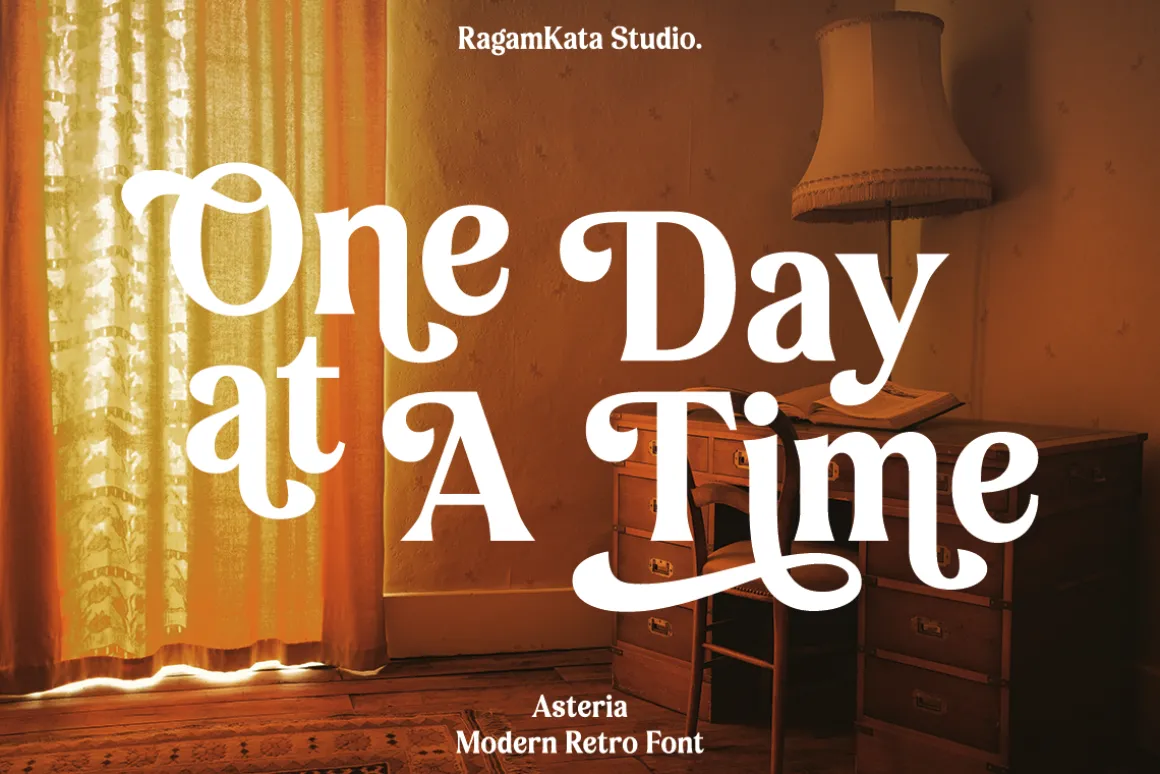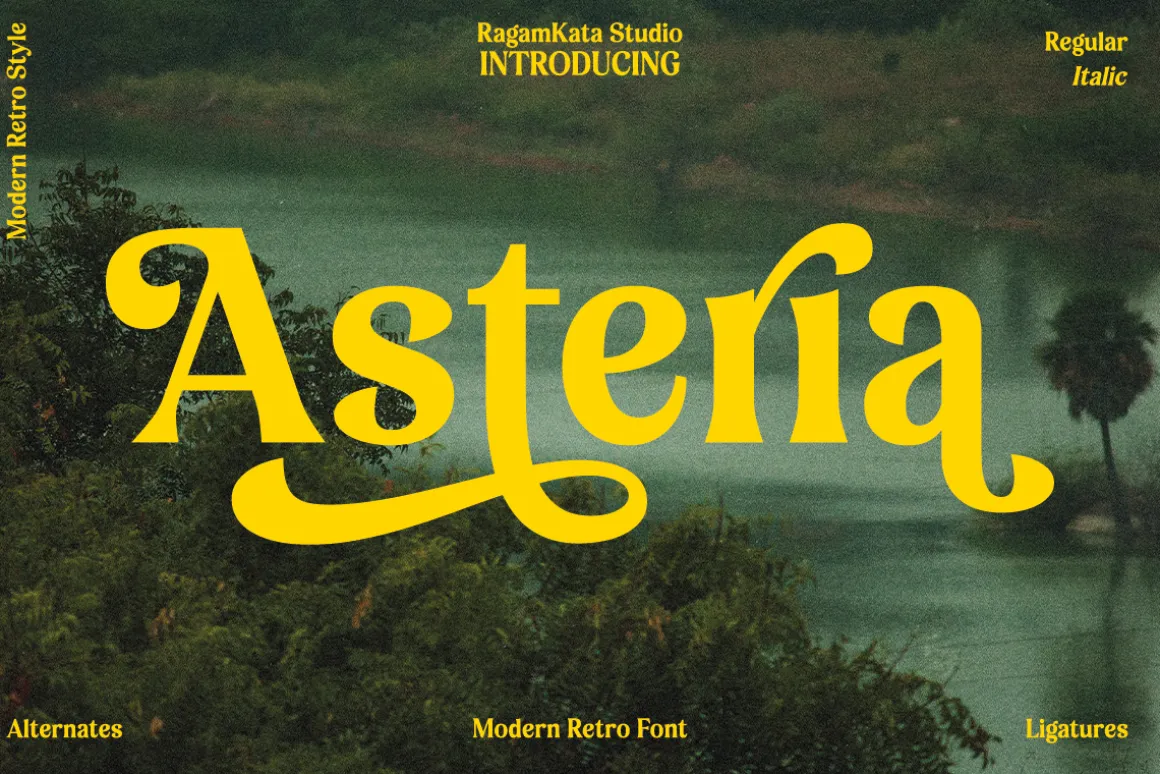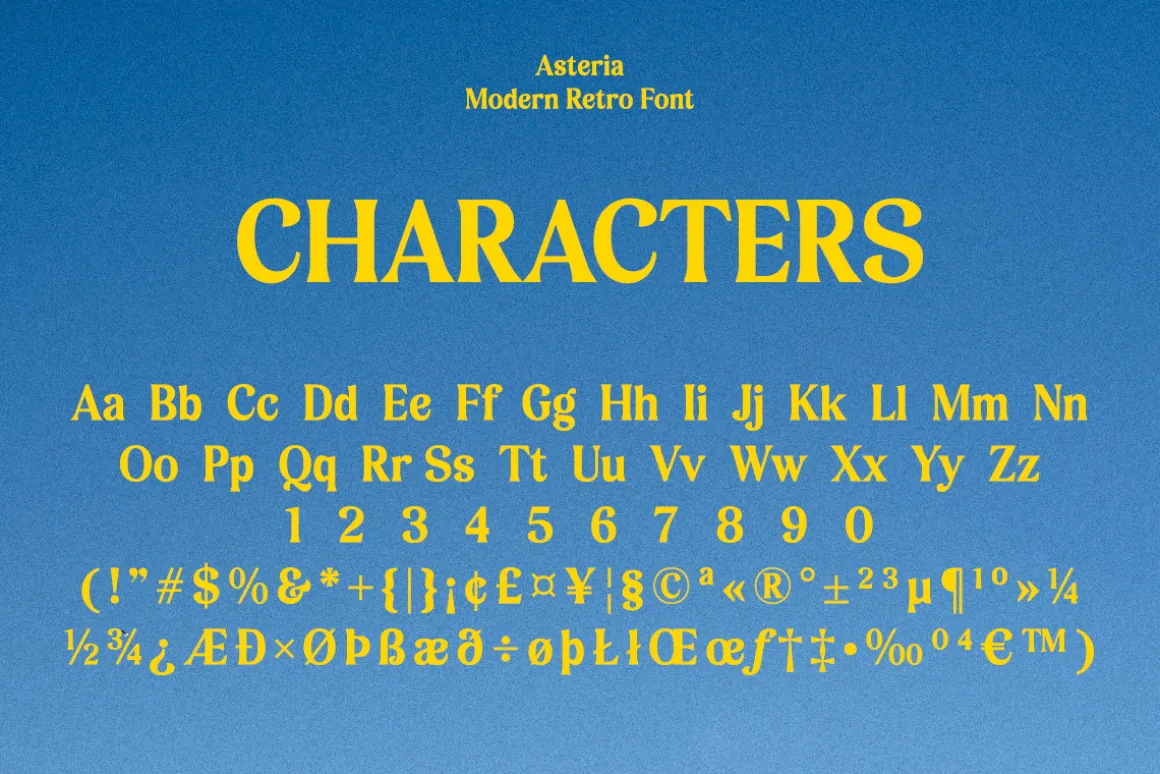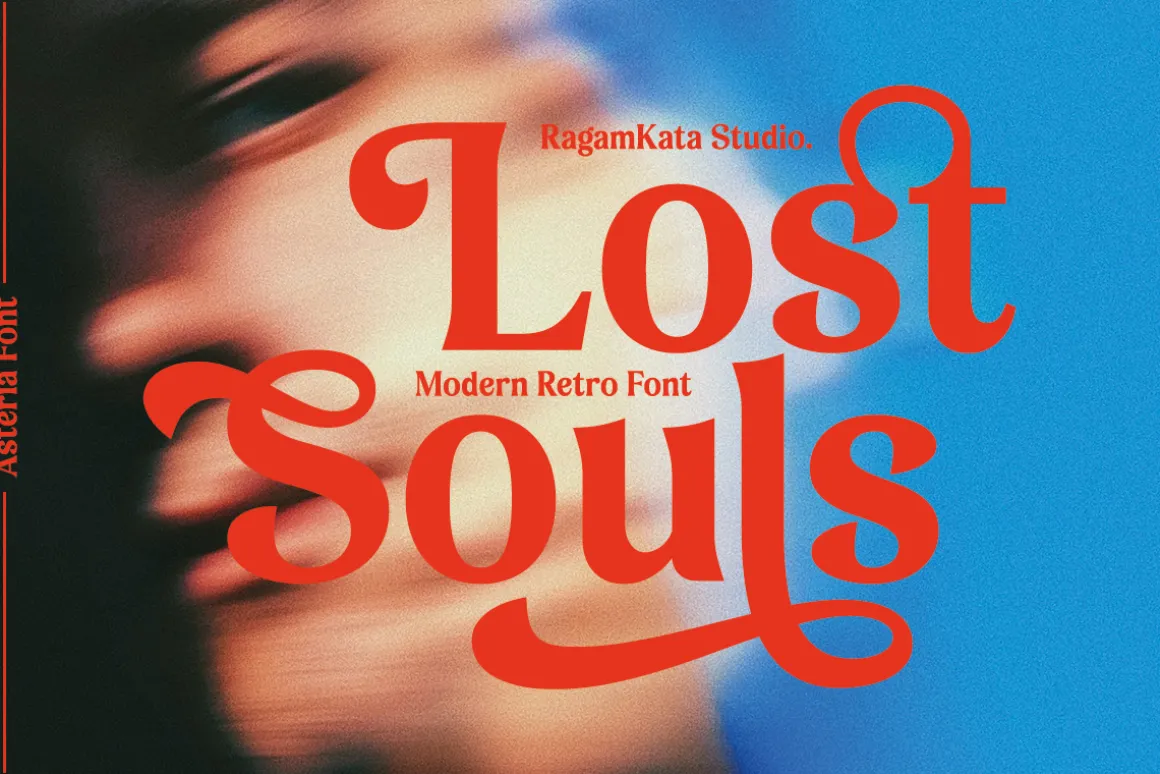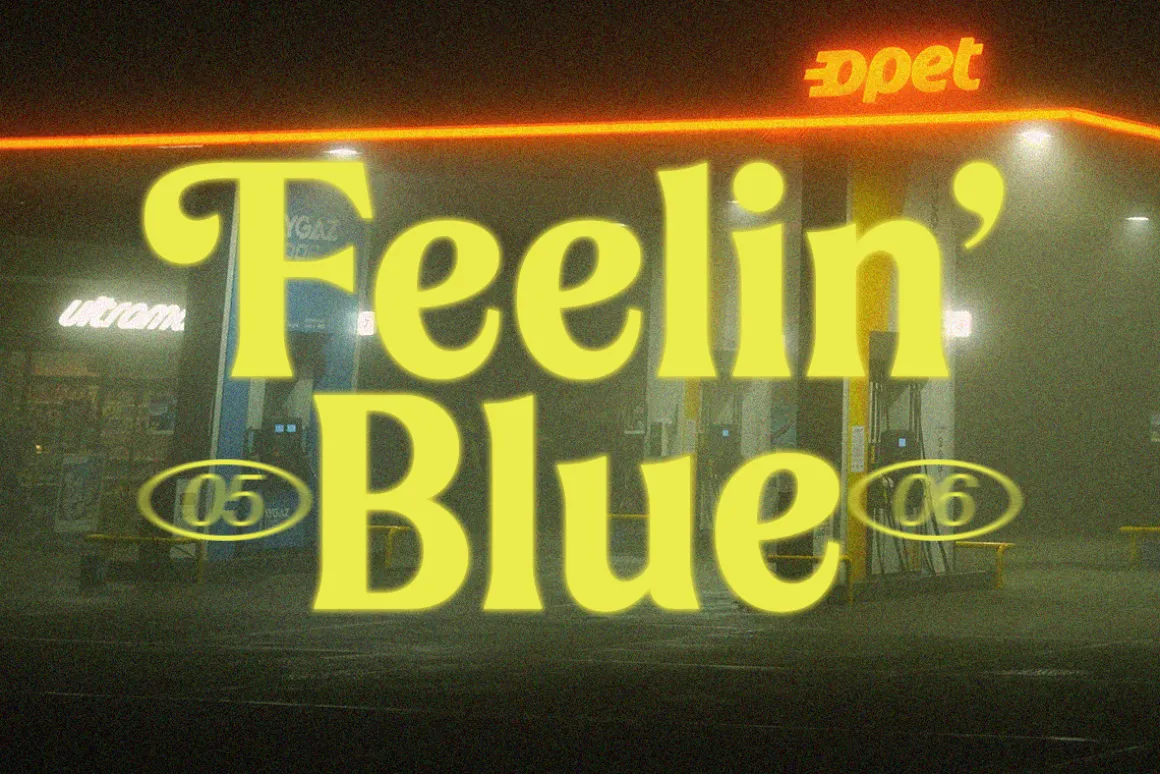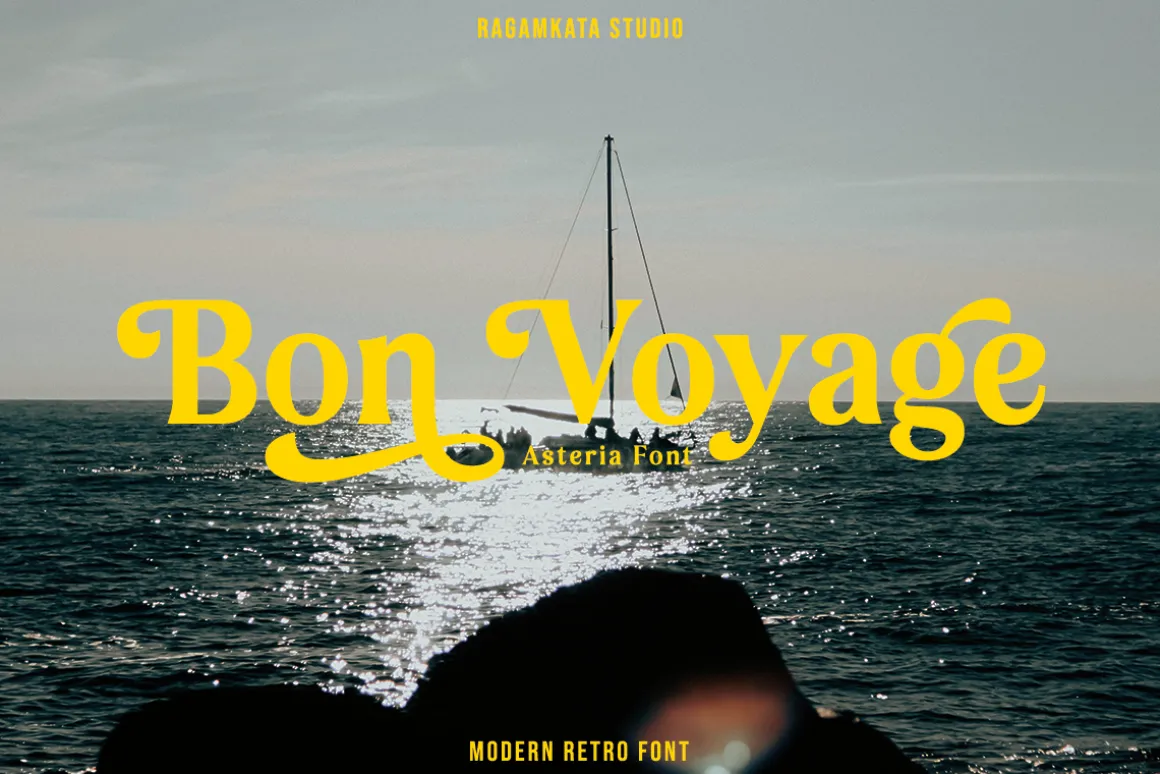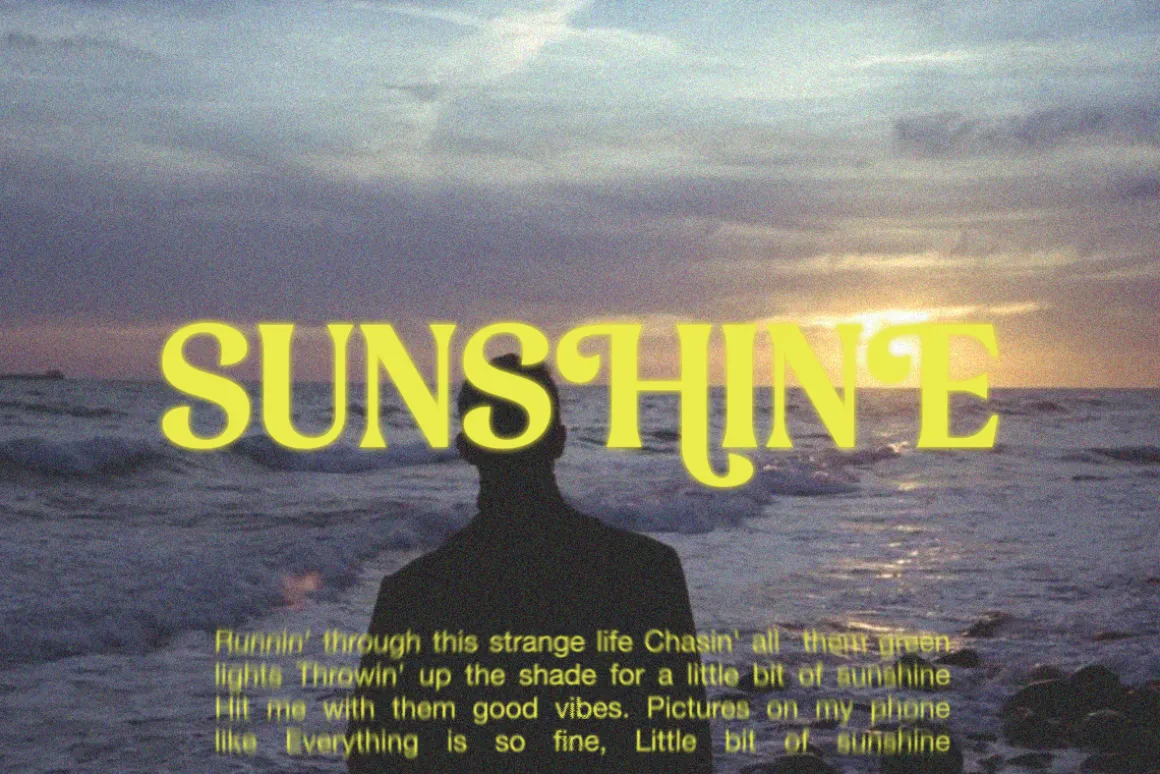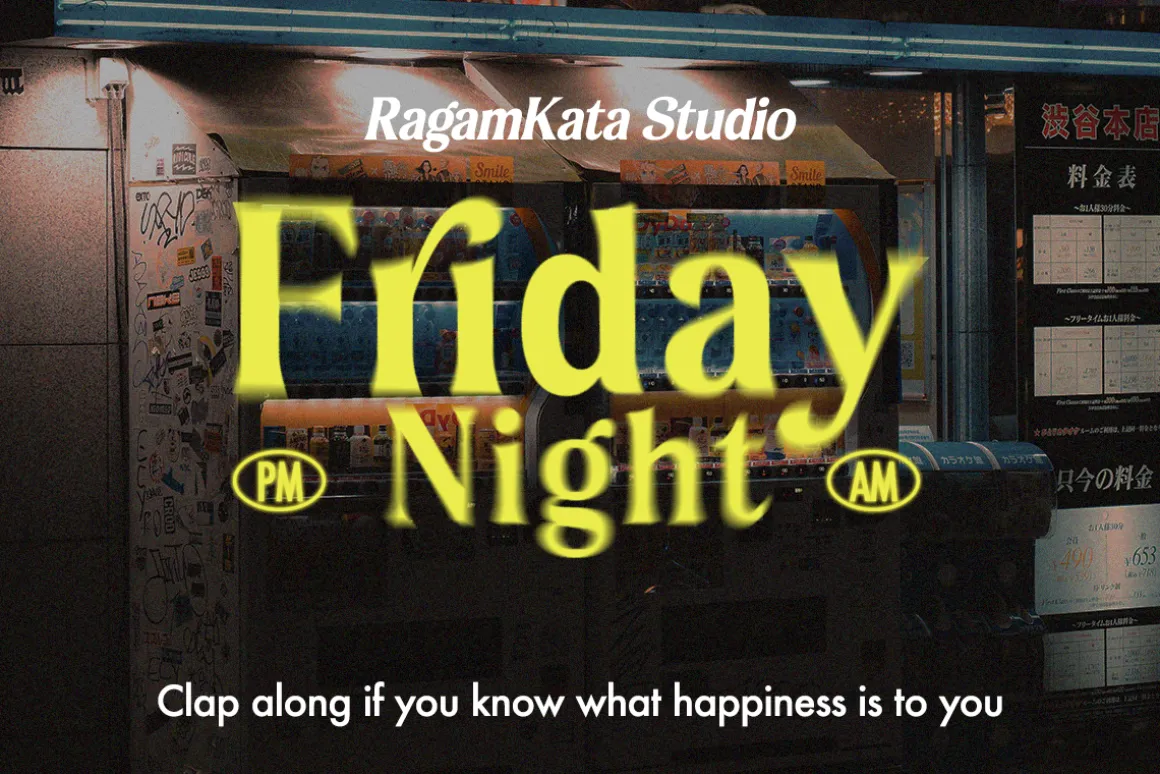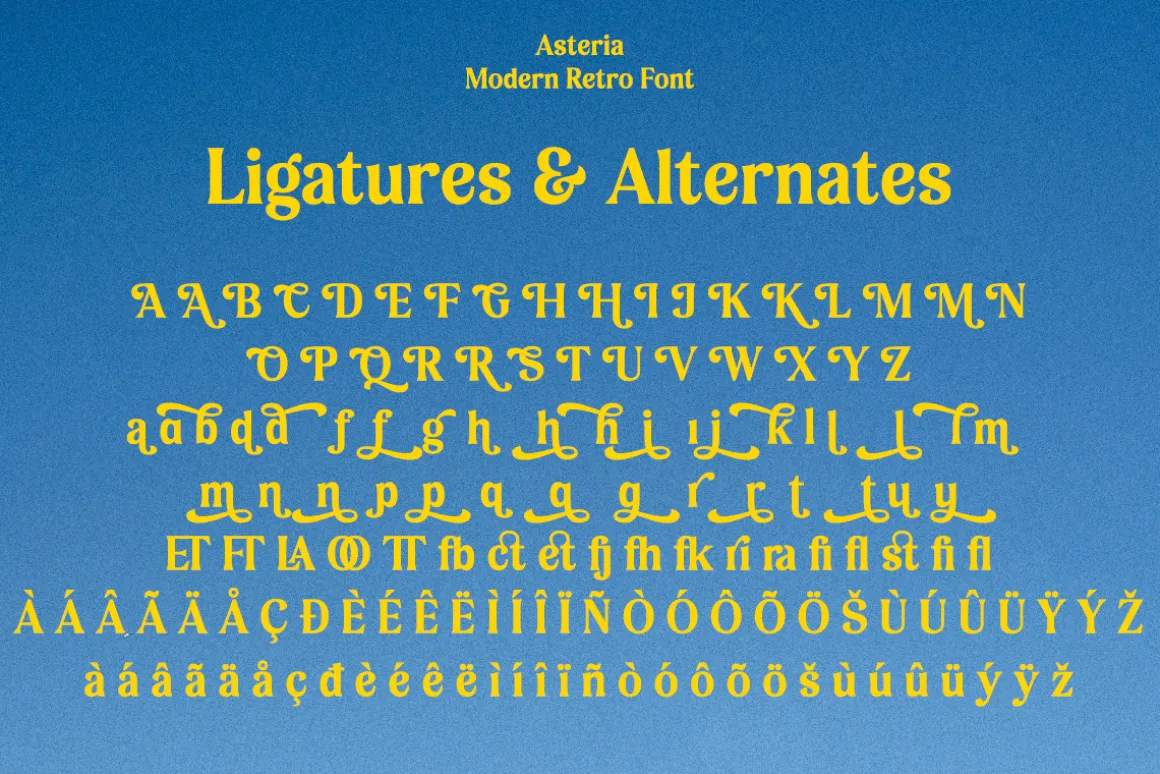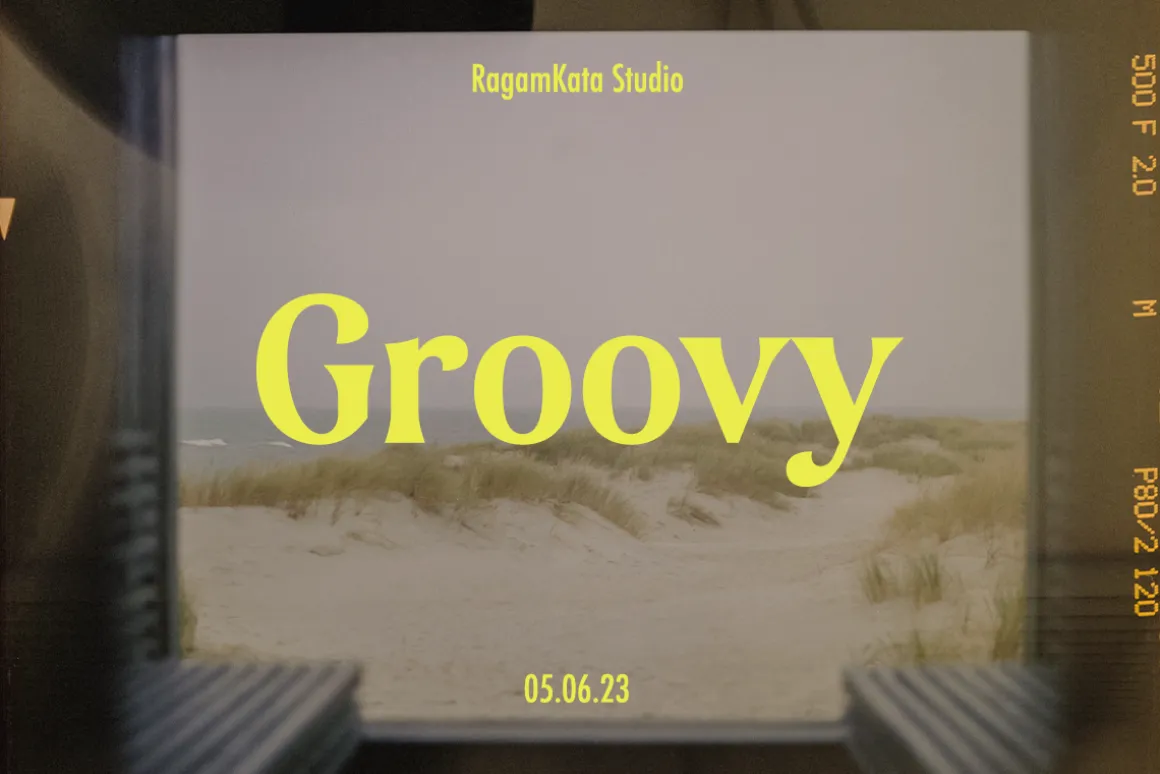
Asteria is Retro Display Font. This typeface is perfect for various purposes such as Magazine Title,Poster, Logo, T-Shirt, Sub Title, Business cards, Magazines, Book Covers, Wedding Invitations,Templates Instagram Story Post, Greeting Cards, Quotes, etc.
Asteria Features:
- Uppercase & Lowercase
- Alternates
- Numerals & Punctuation
- Accented characters
- Multilingual Support